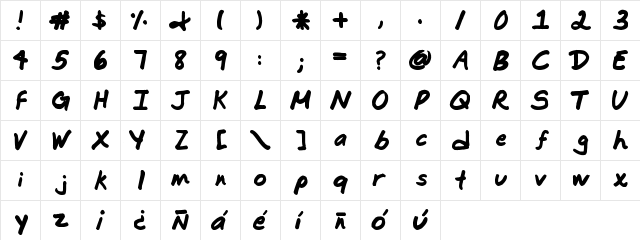
Commotion Business Regular
Design Context for Commotion Business Typeface
Commotion Business takes a measured approach to typography — its balanced proportions and neutral character make it a reliable workhorse for both digital and print work.
Pro Tip: Use Commotion Business in both headline and body roles to test its range before committing to a single application.